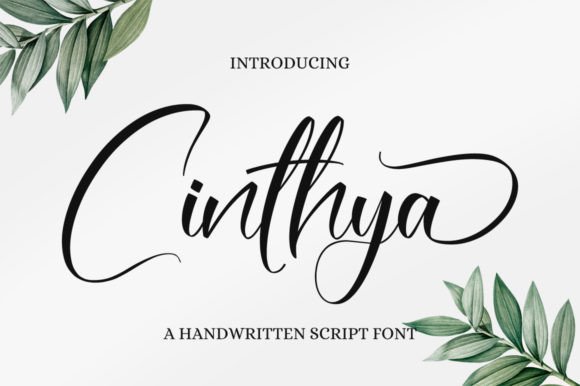
Introducing Cinthya Font, the Exquisite Script Font for Your Creative Endeavors
Within the realm of digital artistry, fonts hold a captivating power, transforming ordinary words into mesmerizing visual expressions. Among this extraordinary collection, Cinthya Font emerges as a radiant gem, a script font poised to elevate your creative pursuits to newfound heights of elegance and sophistication.
A Timeless Masterpiece, Crafted with Care
Inspired by the allure of timeless handwritten elegance, Cinthya Font is a labor of love meticulously crafted by the talented artisans at Nirmala Creative. Each stroke and flourish has been lovingly rendered, capturing the essence of penmanship in its most refined form. As you trace the contours of this font, you'll discover a captivating symphony of curves and angles, effortlessly guiding the eye across your digital canvas.
A Versatile Canvas for Your Creative Expressions
With Cinthya Font, the possibilities are boundless. Unleash your inner artist and let your imagination soar as you explore its multifaceted applications. Whether you're crafting eye-catching logos that demand attention or designing branding materials that exude professionalism, Cinthya Font stands ready to elevate your creations. Its versatility extends to the realm of social media, where your posts and stories will radiate with an aura of sophistication.
The Perfect Choice for Your Wedding Invitations
In the realm of matrimonial celebrations, Cinthya Font reigns supreme. Its delicate strokes and graceful flourishes lend an air of timeless romance to your wedding invitations, transforming them into cherished keepsakes that capture the essence of your special day. As your guests behold the beauty etched in each letter, they'll be swept away by a sense of enchantment, their hearts stirred by the promise of love and happiness.
Experience the Enchantment of Cinthya Font Today
Cinthya Font is more than just a collection of letters and symbols; it's an invitation to embark on a creative journey where your imagination knows no bounds. Whether you're a seasoned designer or just starting to explore the world of digital art, Cinthya Font will be your trusted companion, guiding you towards creative triumphs. Its versatility, elegance, and timeless appeal make it an indispensable tool for any creative arsenal.